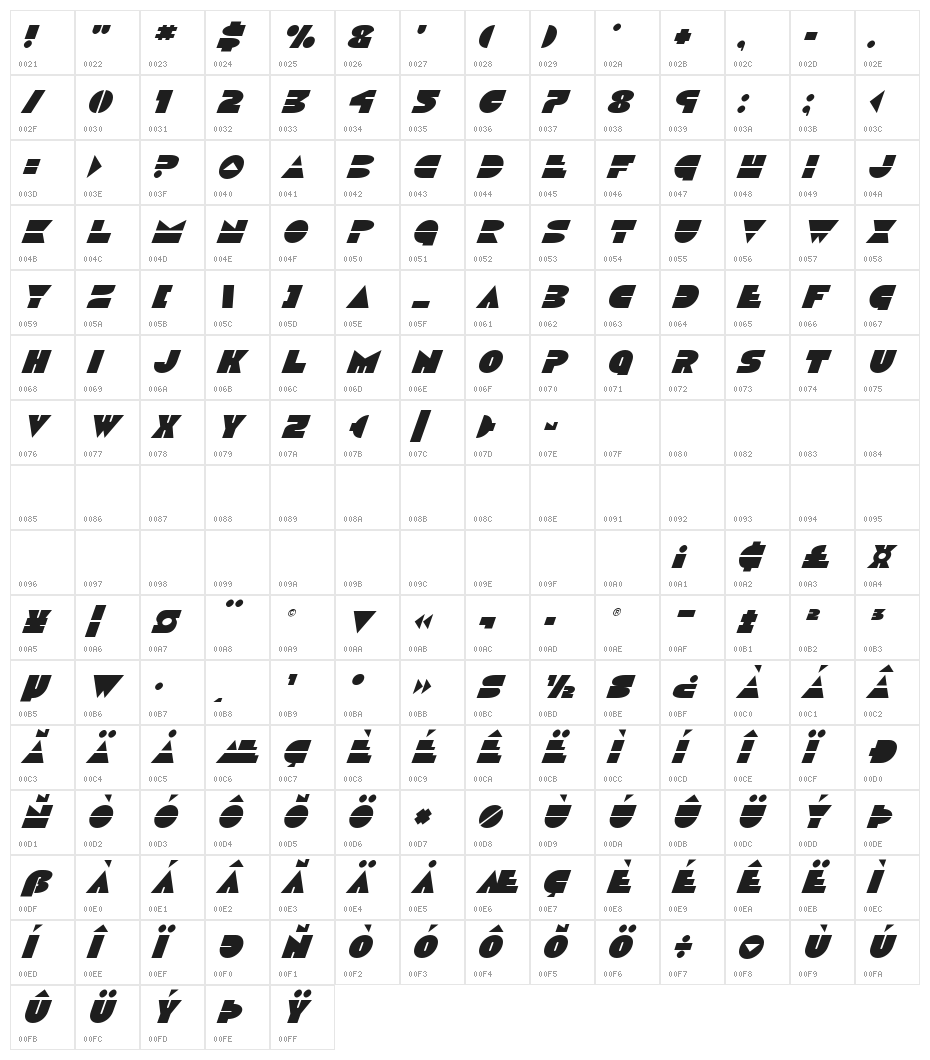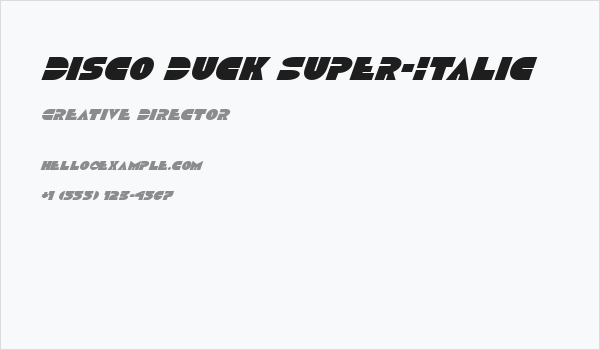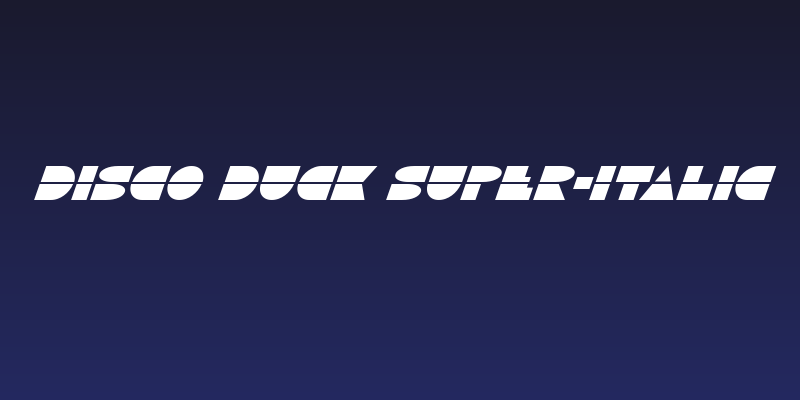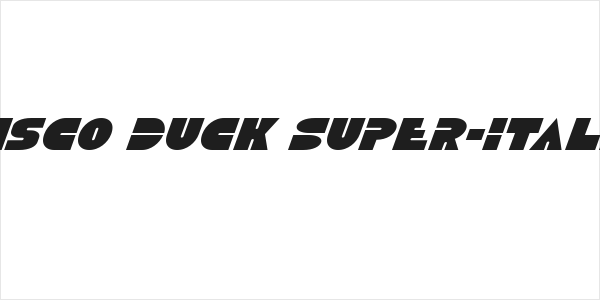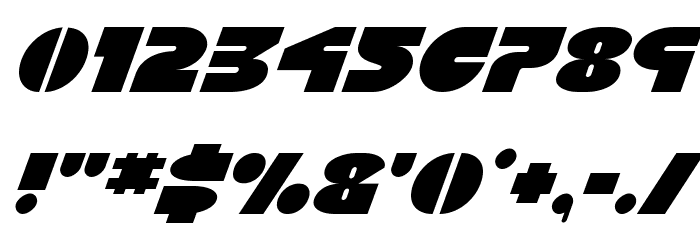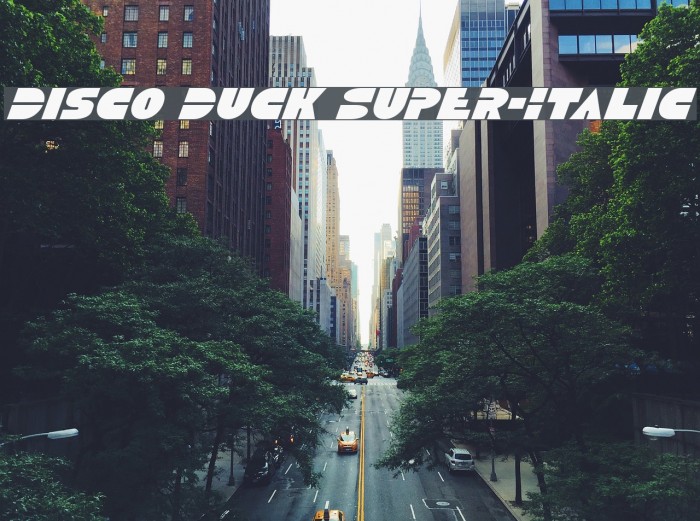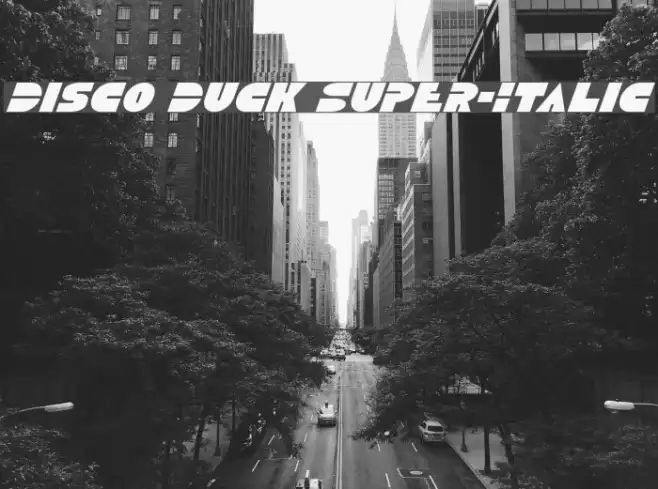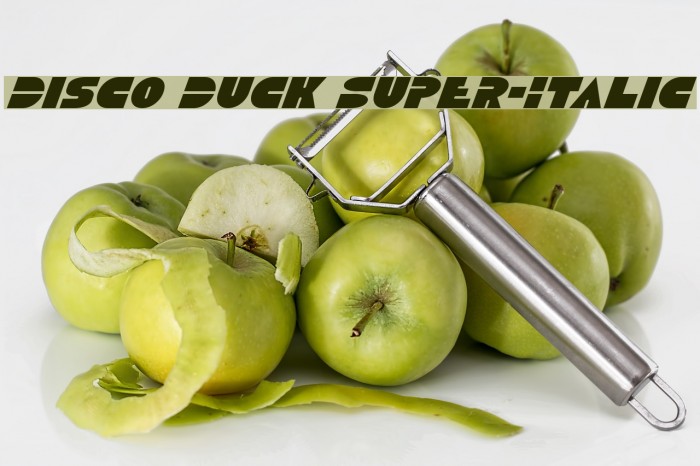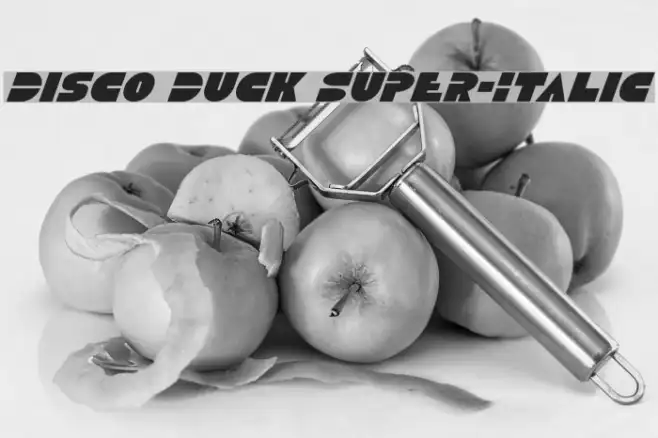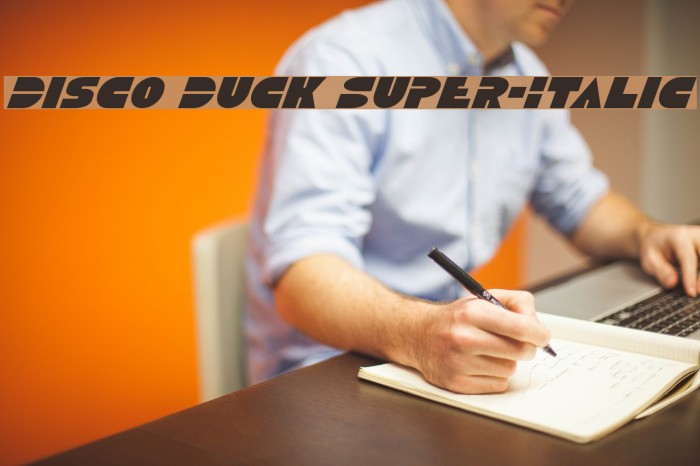
Disco Duck Super-Italic Font
| Estilo general | Futuristic |
| Caso de uso | Logos, Headlines, Posters |
| Proyectos propuestos | Ideal for use in modern branding, sports team logos, dynamic posters, and futuristic-themed designs. |